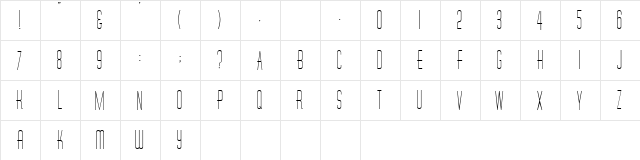
Crossbeam Lite Regular Lite
Design Context for Crossbeam Lite Typeface
Crossbeam Lite is a composed and adaptable typeface that performs quietly and consistently across a wide range of design contexts.
Pro Tip: Use Crossbeam Lite in both headline and body roles to test its range before committing to a single application.